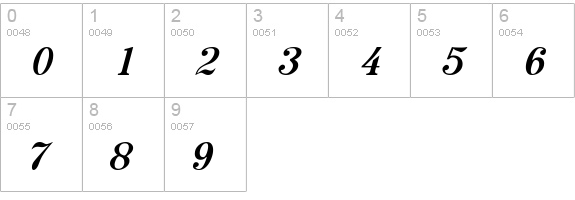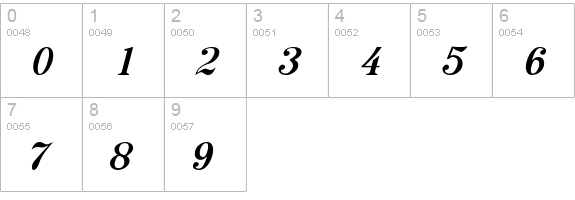
Rataczak BoldItalic Font Details
Rataczak BoldItalic font is a stunningly bold and elegantly slanted typeface that adds a touch of sophistication to any design project. Its beautifully crafted letterforms exude confidence and make a strong visual impact, capturing attention effortlessly. This font is perfect for those seeking to make a bold statement in their designs. Whether it's for branding, logo design, headlines, or any other creative endeavor, Rataczak BoldItalic font will elevate your work to a whole new level of professionalism. With its unique combination of boldness and italic slant, this font stands out from the crowd and adds a sense of drama and flair. It effortlessly blends classic and contemporary design elements, making it versatile for a wide range of projects. One of the best things about Rataczak BoldItalic font is that it is free. Yes, you read that right - this incredible font is freely available to download at FontsMarket.com. It's a fantastic opportunity to enhance your design arsenal without breaking the bank. So why wait? Don't miss out on the chance to elevate your designs with the captivating Rataczak BoldItalic font. Download it for free at FontsMarket.com and unleash your creativity today.